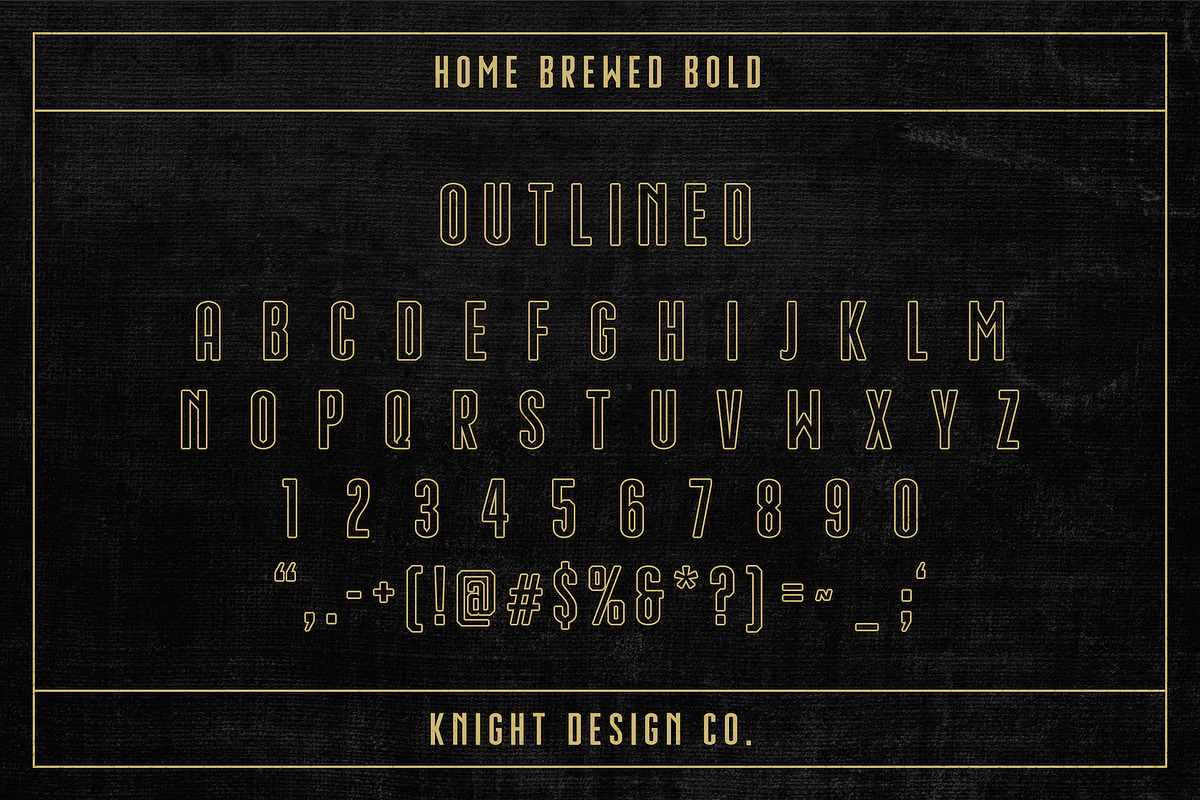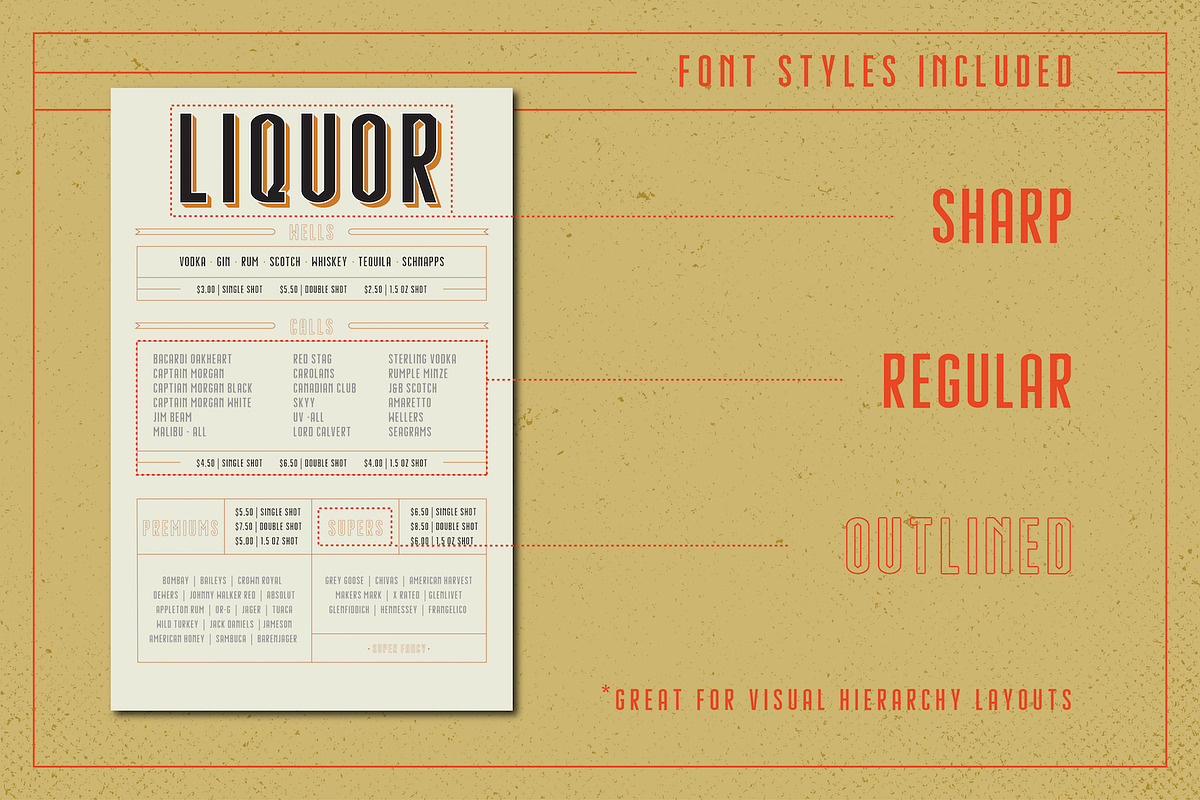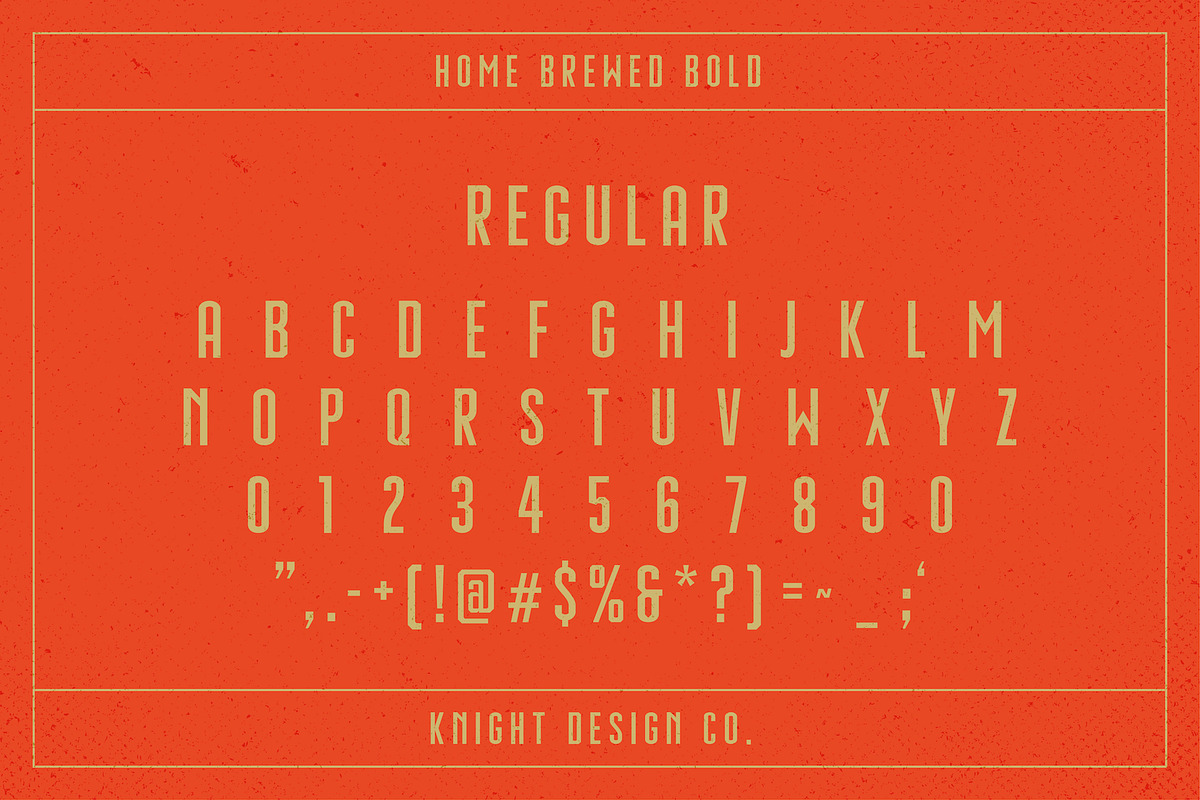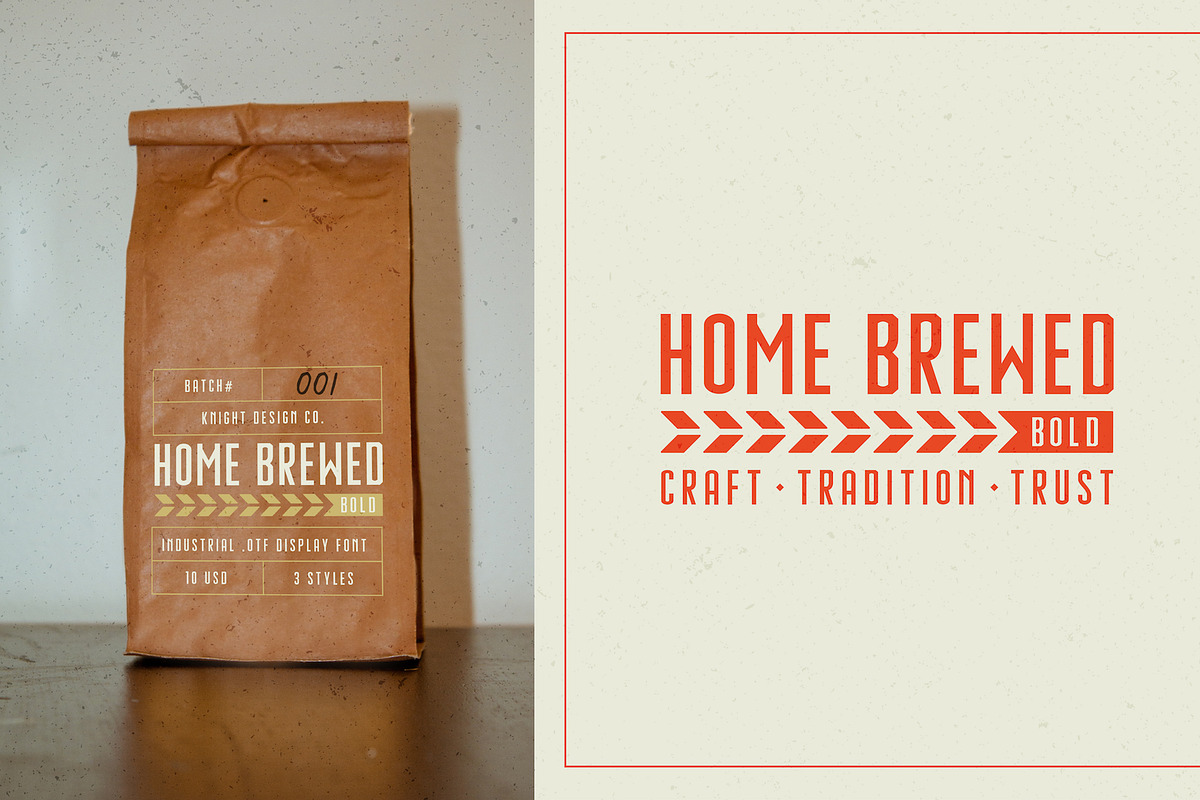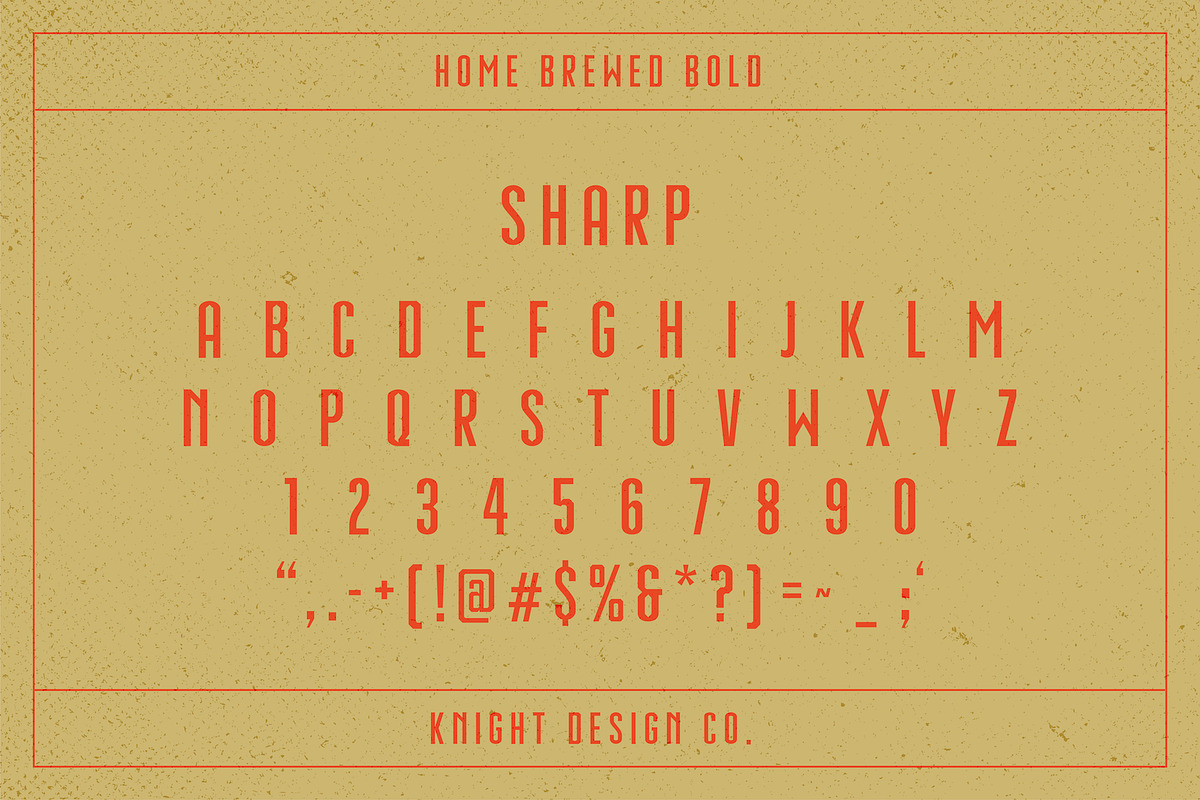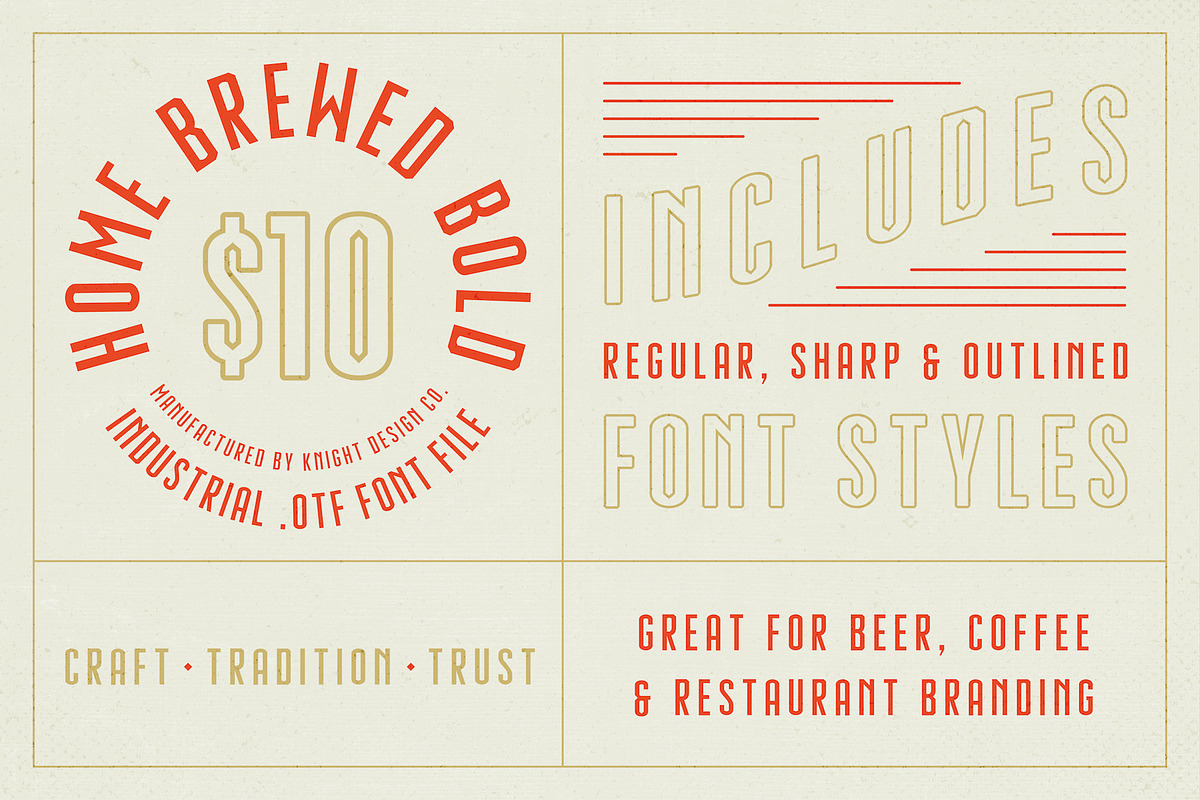
Home Brewed Bold - Industrial Font
Introducing, Home Brewed Bold- a Industrial Typeface
This versatile typeface includes 3 unique display styles. Making this typeface a useful and unique tool in your Font Library. This font was inspired by industrious craft, traditions, and trust.
This typeface works really well for Logos and Branded Materials. It is a great font for brands that want to display pride in what they do. It offers a quality and industrious look to any business.
- Home Brewed Bold Regular
- Home Brewed Bold Outlined
- Home Brewed Bold Rounded